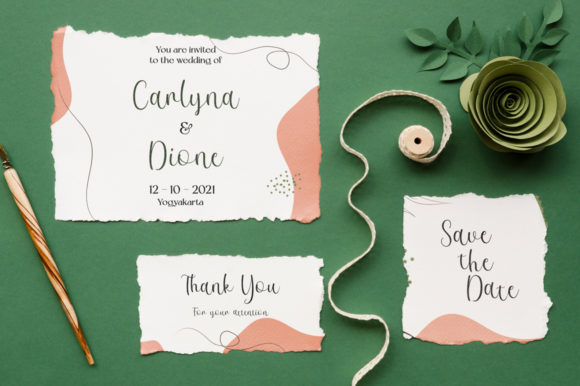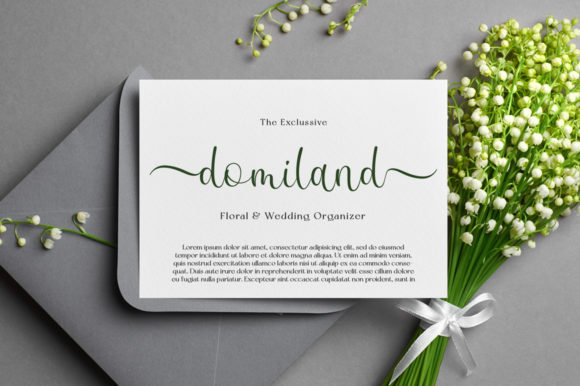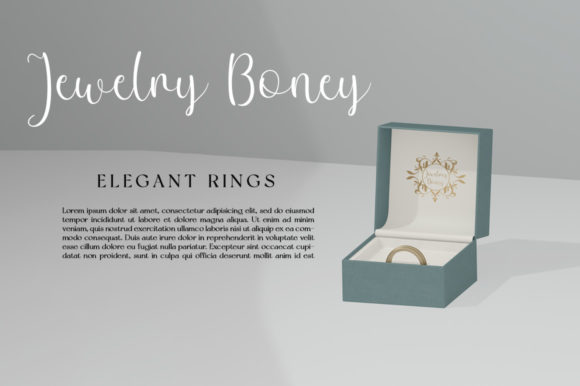
Introduction to Mayumi Font
Have you ever stared at a blank canvas, struggling to find the perfect font to bring your creative vision to life? I’m sure we’ve all been there. But what if I told you that the perfect font is just a click away? Say hello to Mayumi Font, a beautiful script font that’s about to become your new best friend for all your design projects.
Whether you’re working on a logo, invitation, or social media post, Mayumi Font has got you covered. Its elegant, classy, and modern characters are the perfect addition to any design project. And the best part? It’s PUA encoded, making it easy to access all the glyphs and swashes you need. With Mayumi Font, you’ll be able to add a personal touch to your creative project and make it stand out from the crowd.
Key Features of Mayumi Font
- High-quality design: Mayumi Font is a premium font designed for creative projects, offering a sophisticated and elegant look.
- Transparent background: Mayumi Font features a transparent background, allowing for easy customization and versatility in design applications.
- Large character set: Mayumi Font includes a large character set, including uppercase and lowercase letters, numbers, and special characters.
- Perfect for creative projects: Mayumi Font is ideal for use in creative projects, such as logo design, branding, and typography-based art.
Honest Review: Mayumi Font
What works well about the Mayumi Font is its high quality design and versatility. The transparent background makes it easy to layer over other design elements, giving me a lot of flexibility in my creative process. The font’s unique aesthetic also adds a touch of sophistication to my project, making it stand out from the crowd.
- ✨ High quality design
- ✨ Versatile and easy to use
- ✨ Transparent background for easy layering
One limitation I’ve noticed is that the font may not be suitable for large blocks of text. The unique design can make it difficult to read when used extensively, so it’s best used in moderation.
Overall, I’m really impressed with the Mayumi Font. It’s a valuable design resource that has helped take my project to the next level. With its high quality design and flexibility, I highly recommend it to any designer looking to add a touch of elegance to their work.
Using Mayumi Font in Creative Projects
The Mayumi Font is perfect for creative projects that require a touch of elegance and sophistication. Whether you’re working on a logo design, typography project, or infographic, this font will elevate your design to the next level. Its transparent background makes it ideal for use on images or backgrounds with varying levels of opacity.
Tips for Getting the Most Out of Mayumi Font
To maximize the effectiveness of the Mayumi Font, try combining it with other design elements, such as images or graphics, to create a visually appealing design. Experiment with different font sizes, colors, and styles to find the perfect balance for your project.
The Mayumi Font is suitable for a wide range of applications, including:
- Typography projects
- Infographics
- Business cards
- Brochures
Yes, the Mayumi Font has a transparent background, making it ideal for designs that require a clear or semi-transparent background. This feature allows you to layer the font over images or other design elements without any visual obstruction.
Can I modify the Mayumi Font to suit my specific design needs?
While the Mayumi Font is designed to be highly customizable, it’s not recommended to modify the font’s core structure. However, you can use font editing software to create custom styles, ligatures, or other variations that suit your specific design requirements.